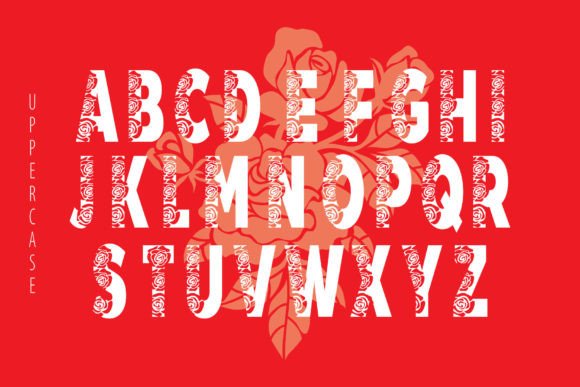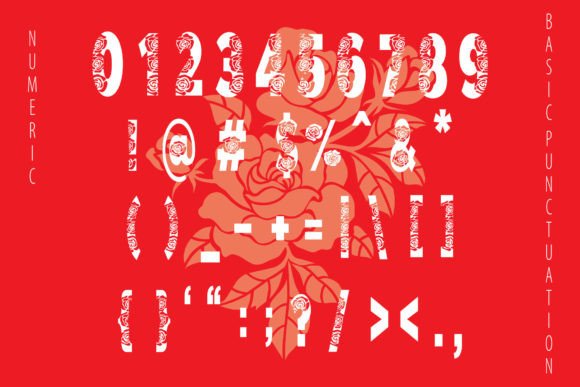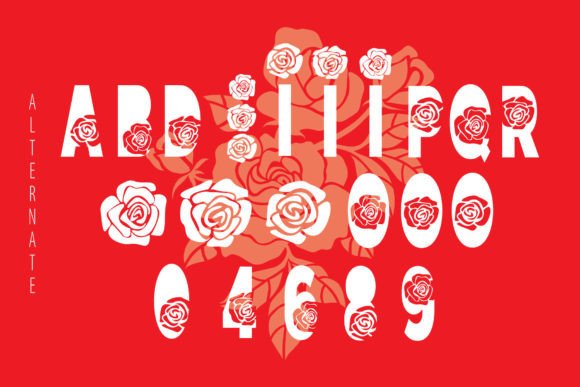
Introduction to Rosaceae Font
Rosaceae is a simple, fresh, and strong-lettered decorative font.
It has unique characters that will turn any design project into a true stand-out Add it confidently to your projects, and you will love the results.
Rosaceae Font offers exceptional quality and versatility, making it a valuable addition to your design toolkit. Whether you’re creating for personal projects or commercial use, Rosaceae Font delivers professional results.